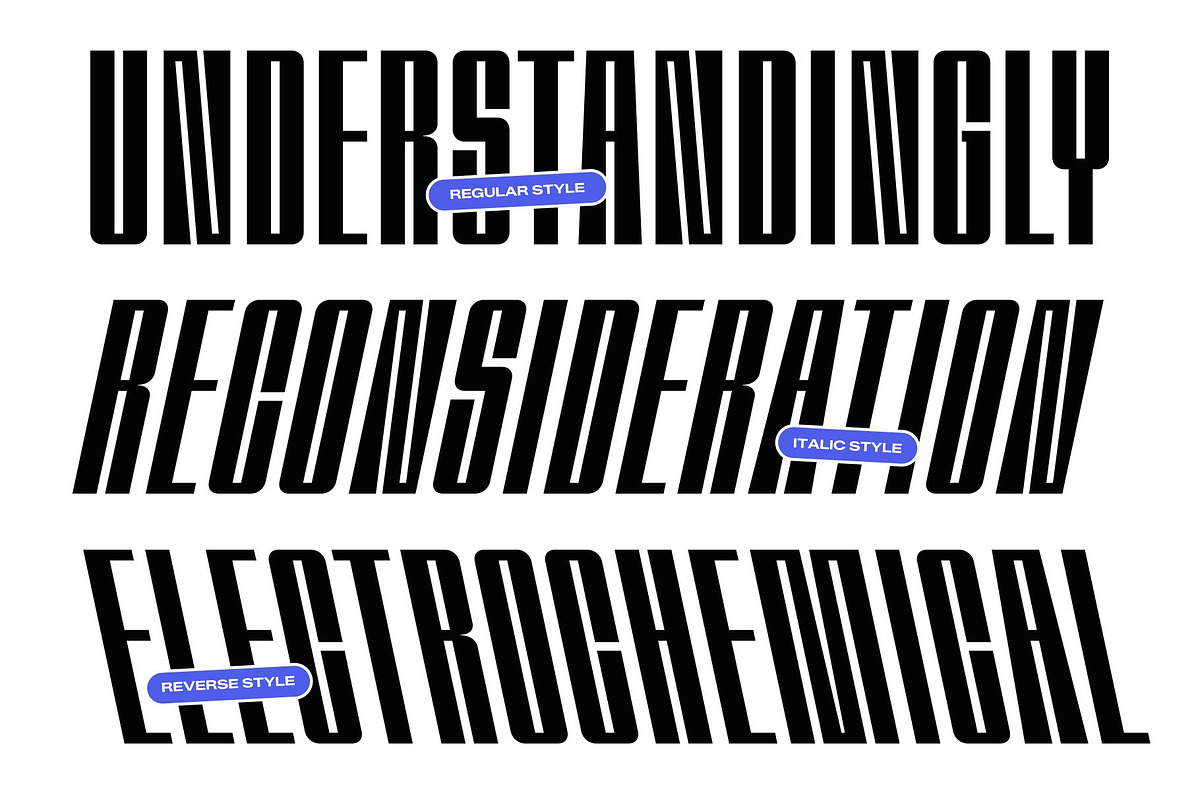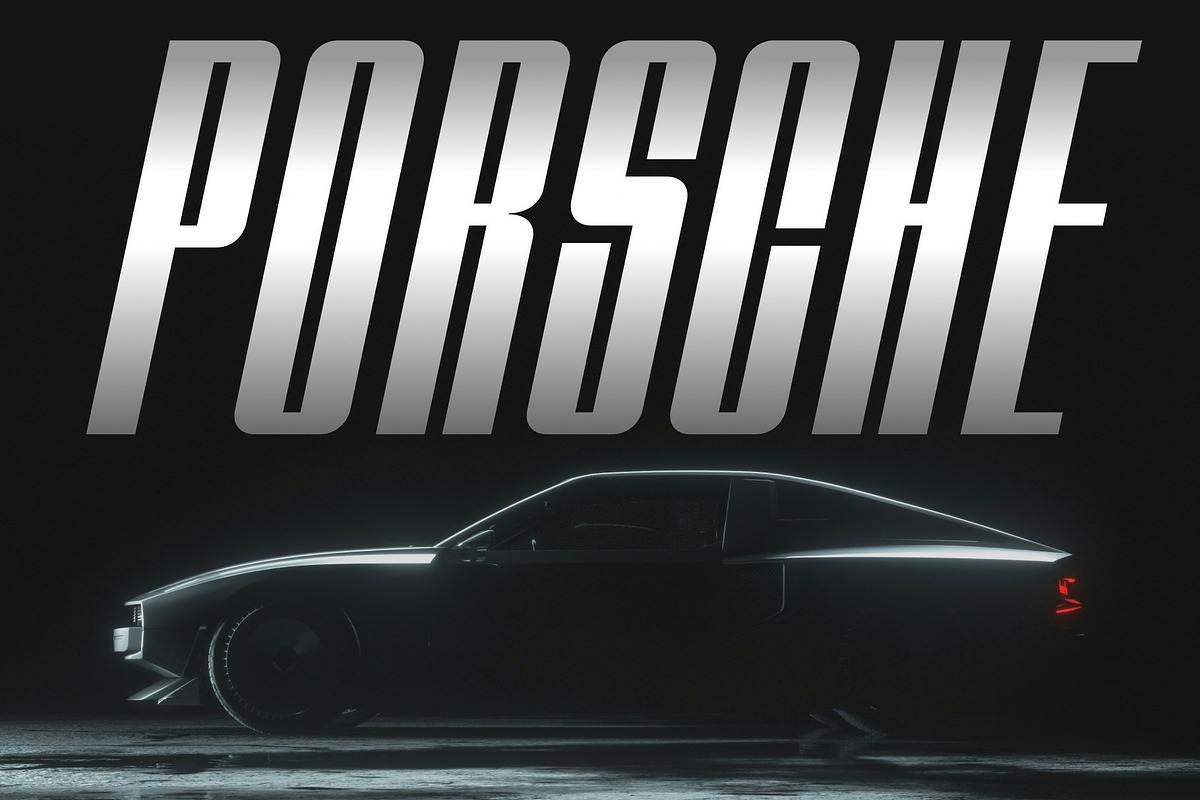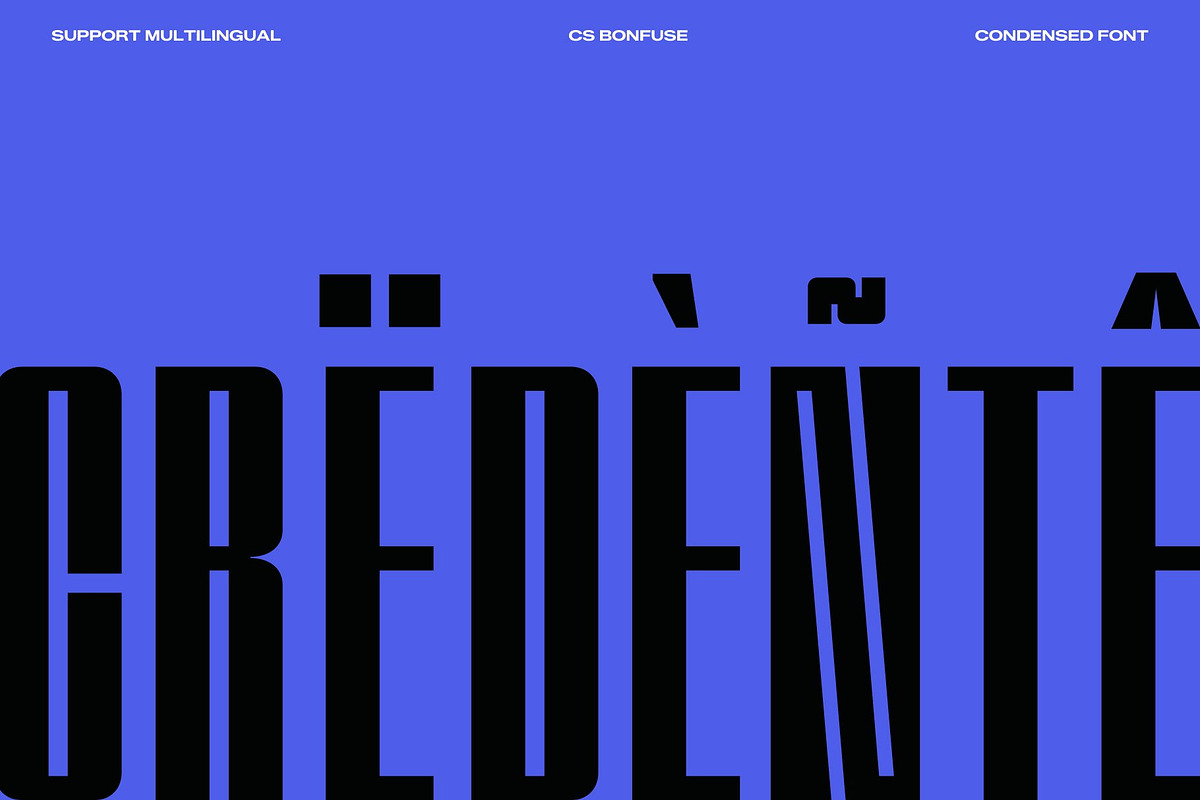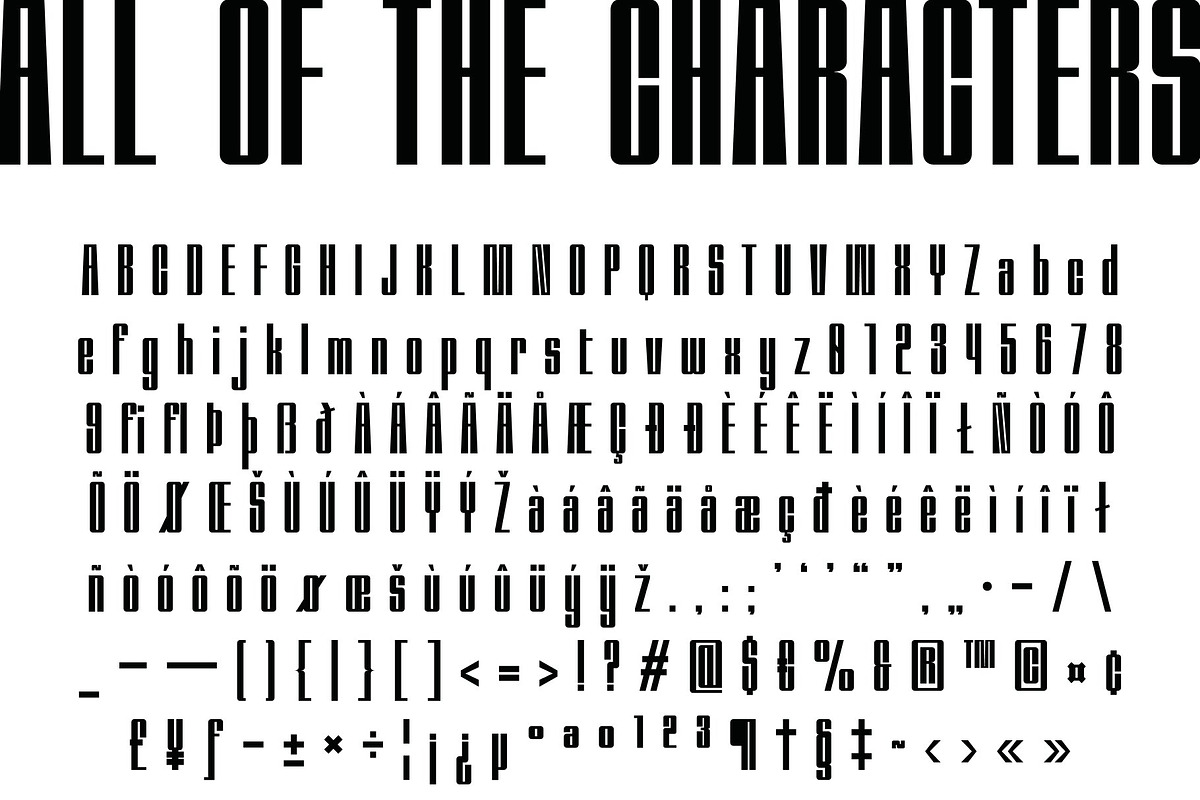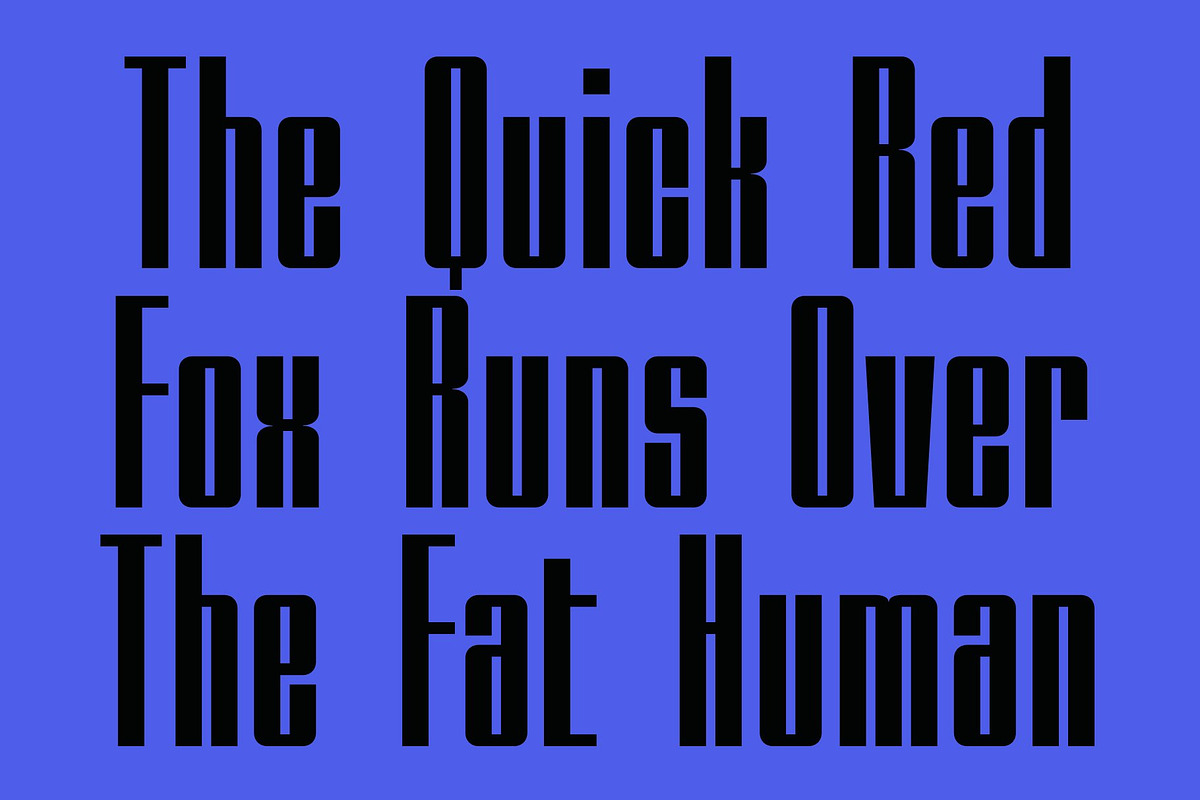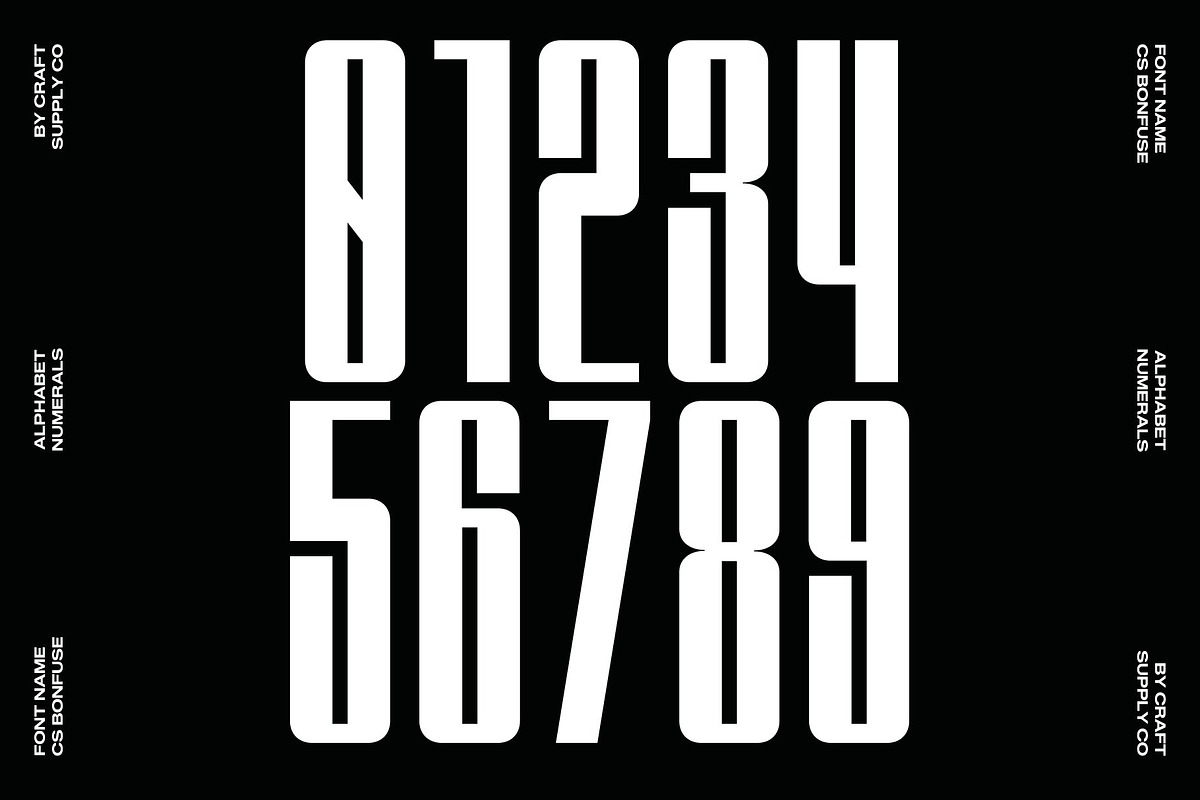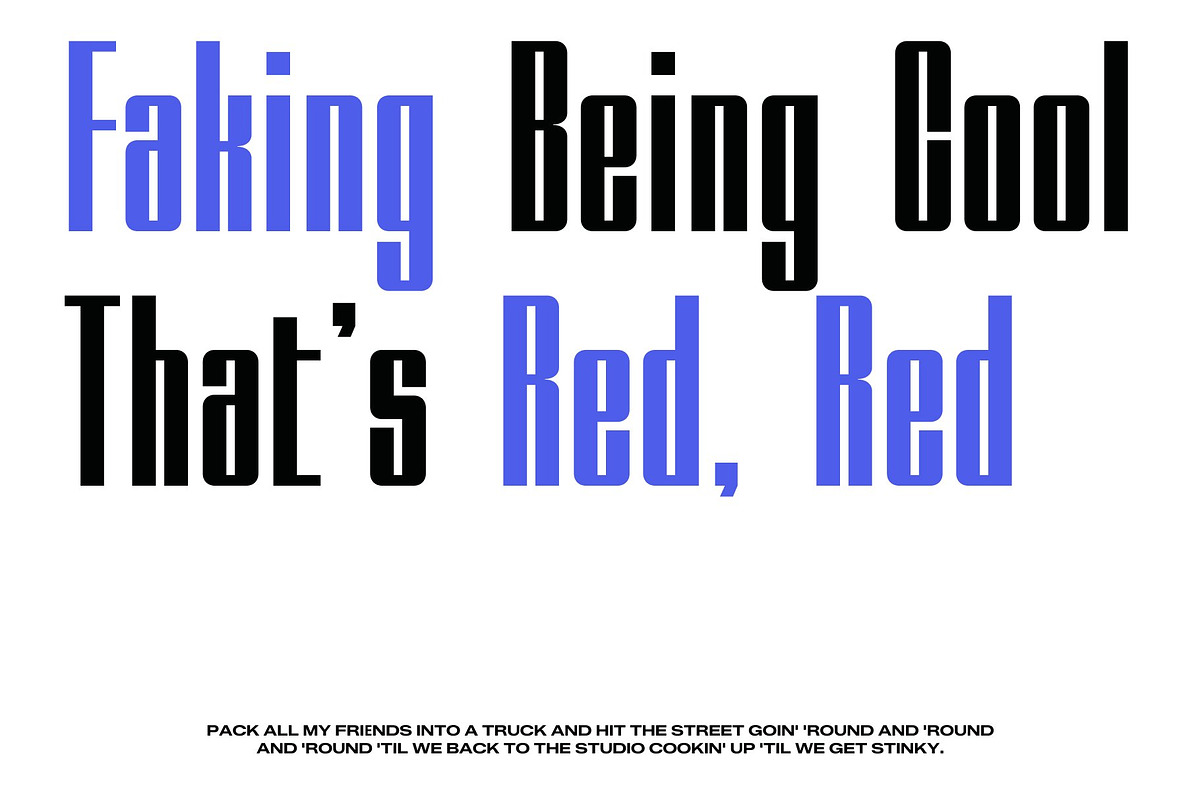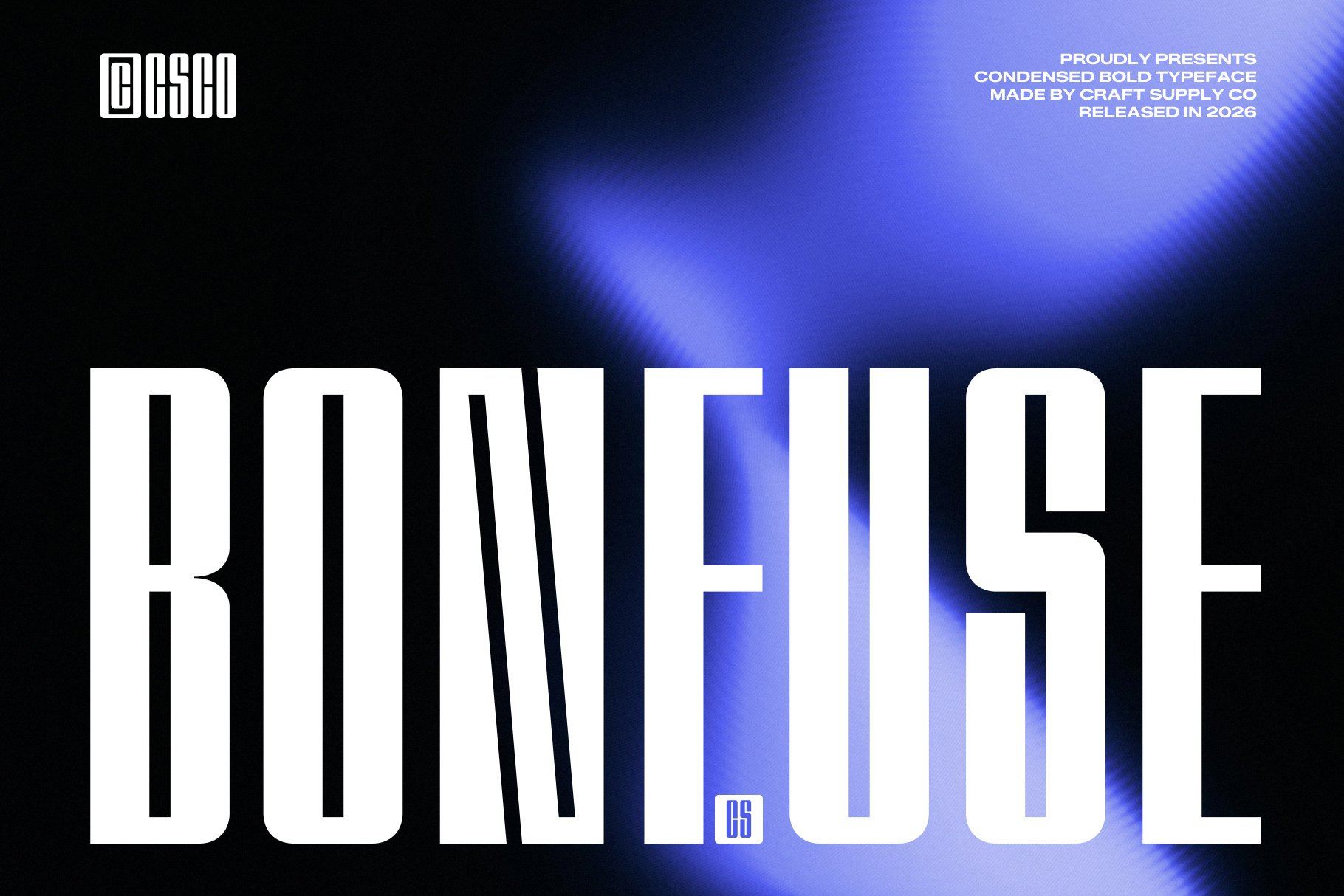
CS Bonfuse – Condensed Font
CS Bonfuse – Bold Condensed Sans Serif with Industrial Strength
Condensed Sans Serif with Powerful Presence This is a bold condensed sans serif font designed to deliver strength, clarity, and modern impact. With its firm line shapes and compact proportions, this typeface commands attention while maximizing space efficiency. It is crafted for designers who need typography that feels strong, confident, and unmistakably modern.
Rigid Shapes with Industrial Character The letterforms feature structured geometry and sharp precision, creating a technical and masculine personality. Its rigid construction evokes an industrial aesthetic that feels powerful and dependable, making the typeface ideal for designs that demand authority and bold visual presence.
Compact Form with High Impact The condensed structure allows more content to fit within limited space without losing readability or visual strength. This makes this font especially effective for headlines, signage, and layouts that require strong messaging in tight compositions. The balance between boldness and clarity ensures consistent performance across applications.
Perfect for Posters, Branding, and Bold Design From branding and posters to headlines and creative projects, this font offers a versatile typographic solution. Its industrial strength and modern style help create designs that feel eye-catching, confident, and visually powerful.
CS Bonfuse Regular
CS Bonfuse Italic
CS Bonfuse Reverse Italic